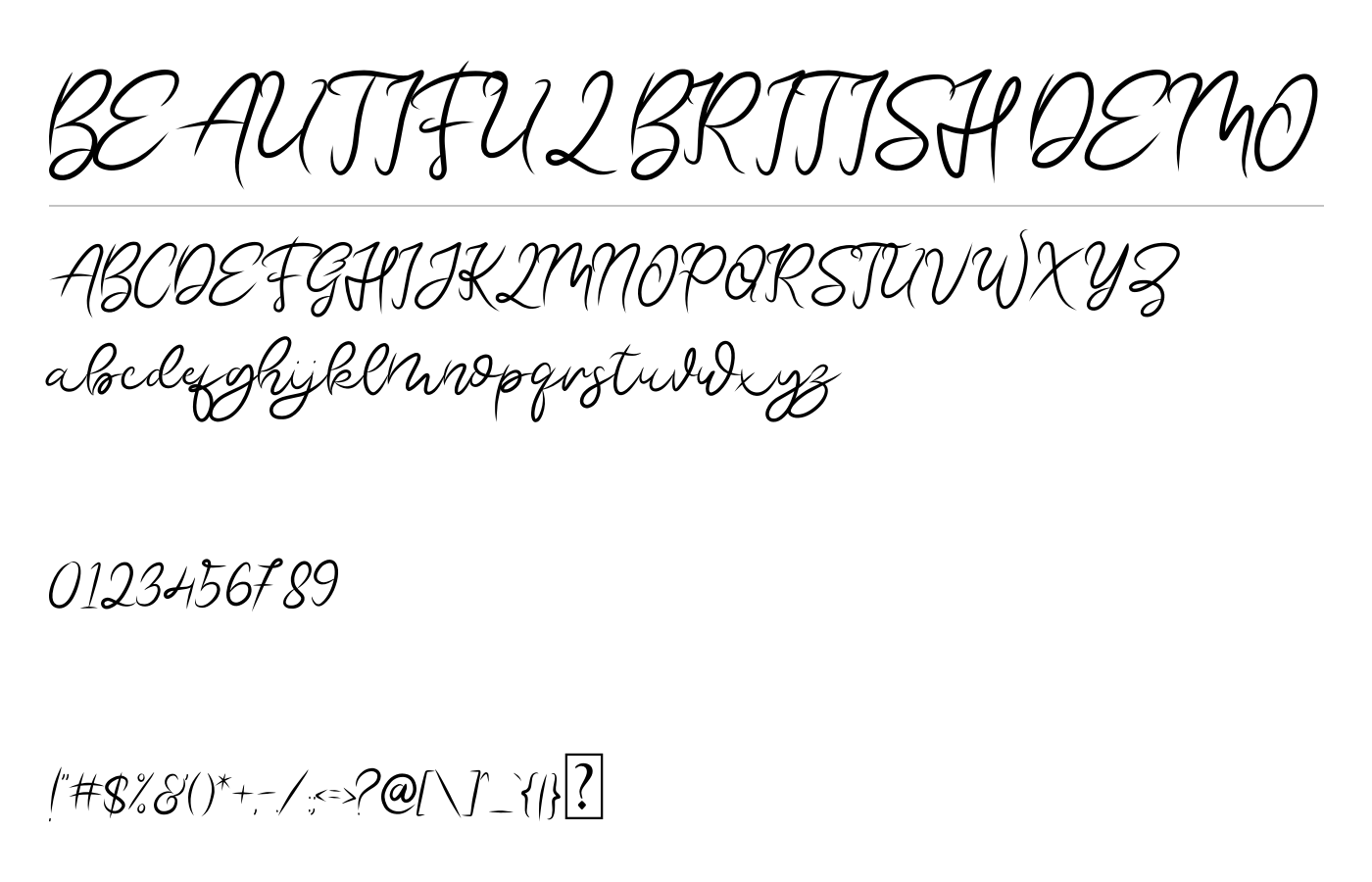
Beautiful British Demo is a delicate and elegant script font with fluid, handwritten strokes that convey a sense of sophistication and charm. Its slender, slightly condensed letterforms feature graceful curves and loops, making it ideal for luxury branding, invitations, and creative projects that seek a personal, refined touch. This font works best in large sizes where its intricate details and stylish flair can truly shine.
BEAUTIFUL BRITISH DEMO Font
About BEAUTIFUL BRITISH DEMO Font
| Font family | BEAUTIFUL BRITISH DEMO Font |
| Designer | Elbanadha Creative |